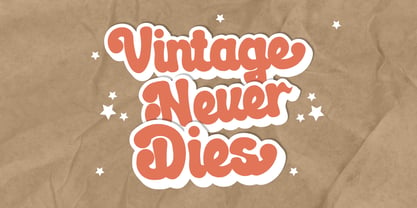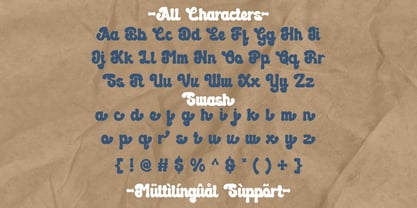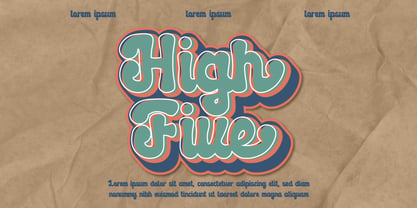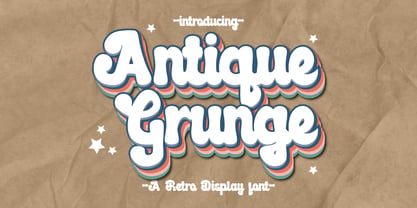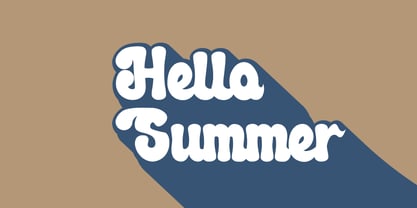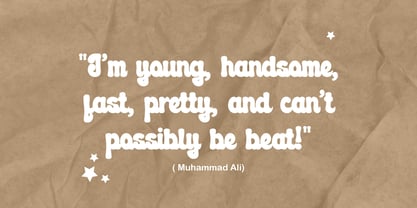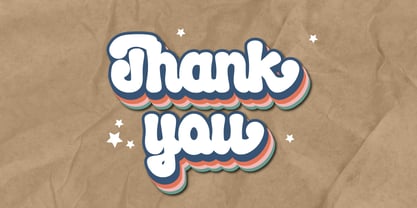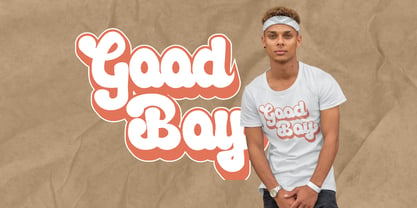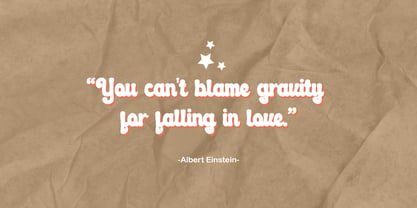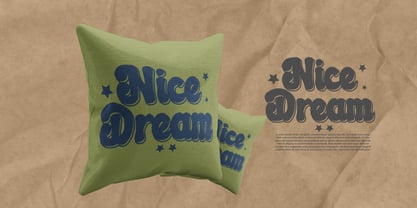
Antique Grunge
The Antique Grunge Font Family was designed by Gugun Gunawan and published by Patlot Digital Studio. Antique Grunge contains 1 styles. More about this family
Antique Grunge is a timeless, vintage-style script font. Use it to add a special retro touch to your design ideas! Step back into the nostalgic realm of yesteryears with Antique Grunge, a classic, vintage script font. Perfectly suited for everything from logo construction to stationery, from wedding designs to invitations, Antique Grunge transforms your vision into a timeless treasure. An ideal choice for your social media posts and branding needs as well. Ensuring ease of use, this font is PUA encoded, allowing you to effortlessly utilize all of its intricate glyphs and elegant swashes. Unlock the retro charm and add a dash of old-world elegance to your aesthetics with Antique Grunge.